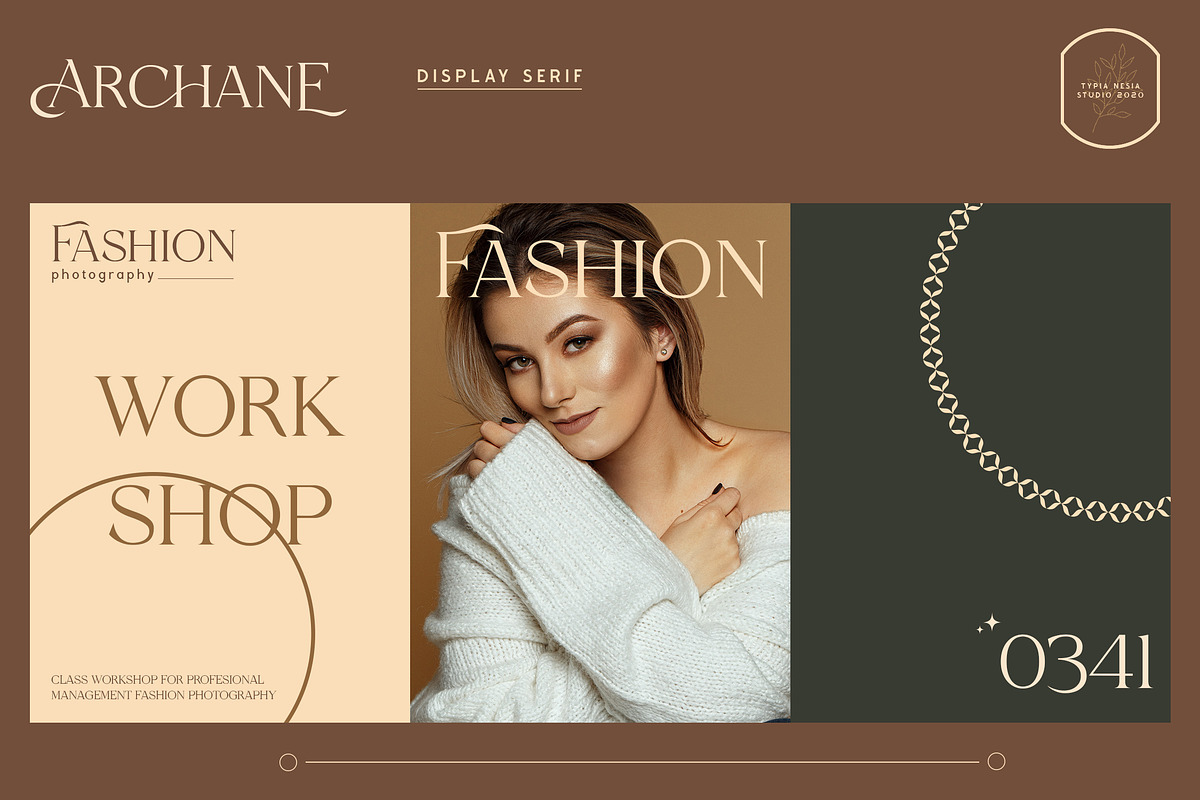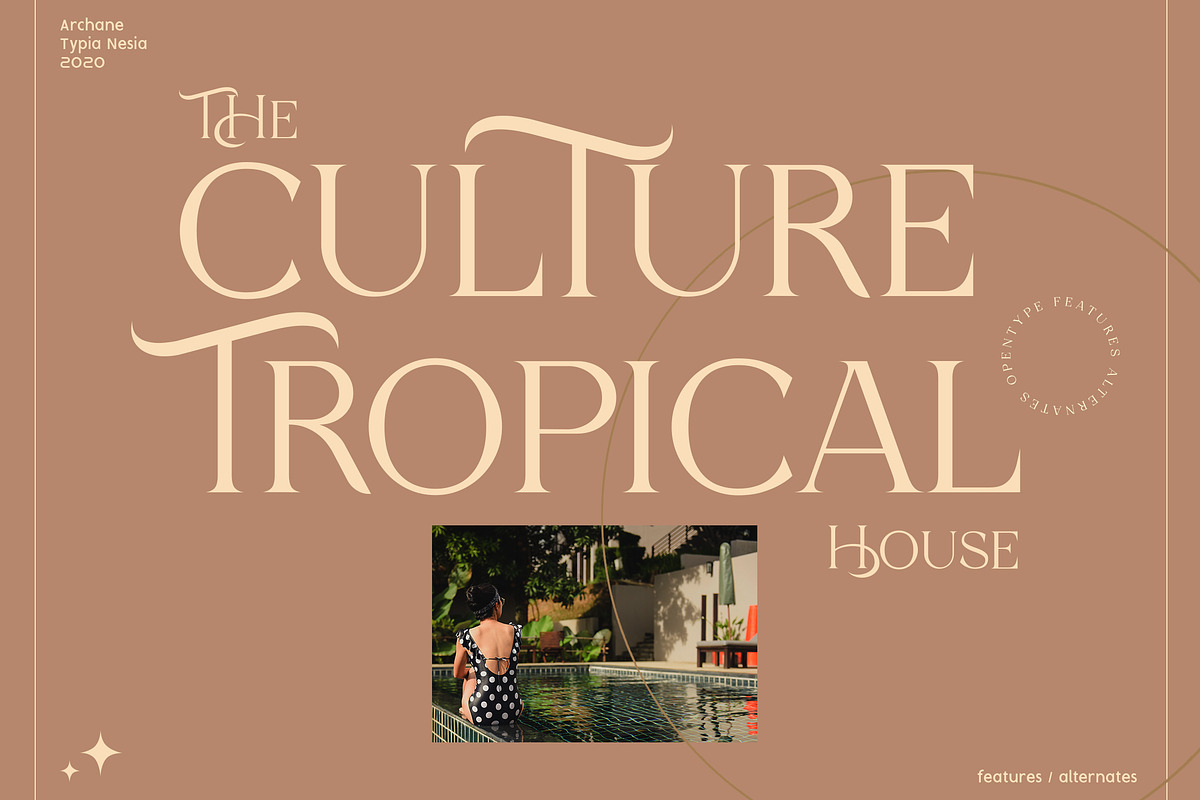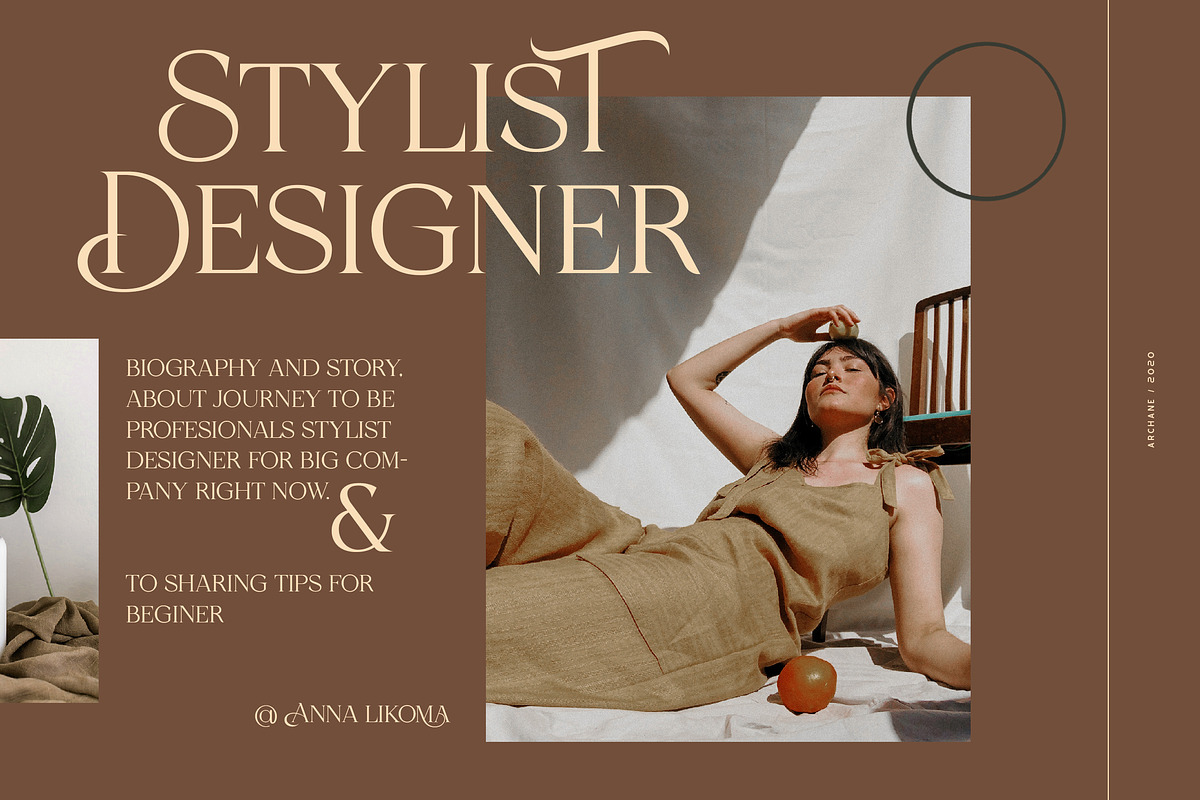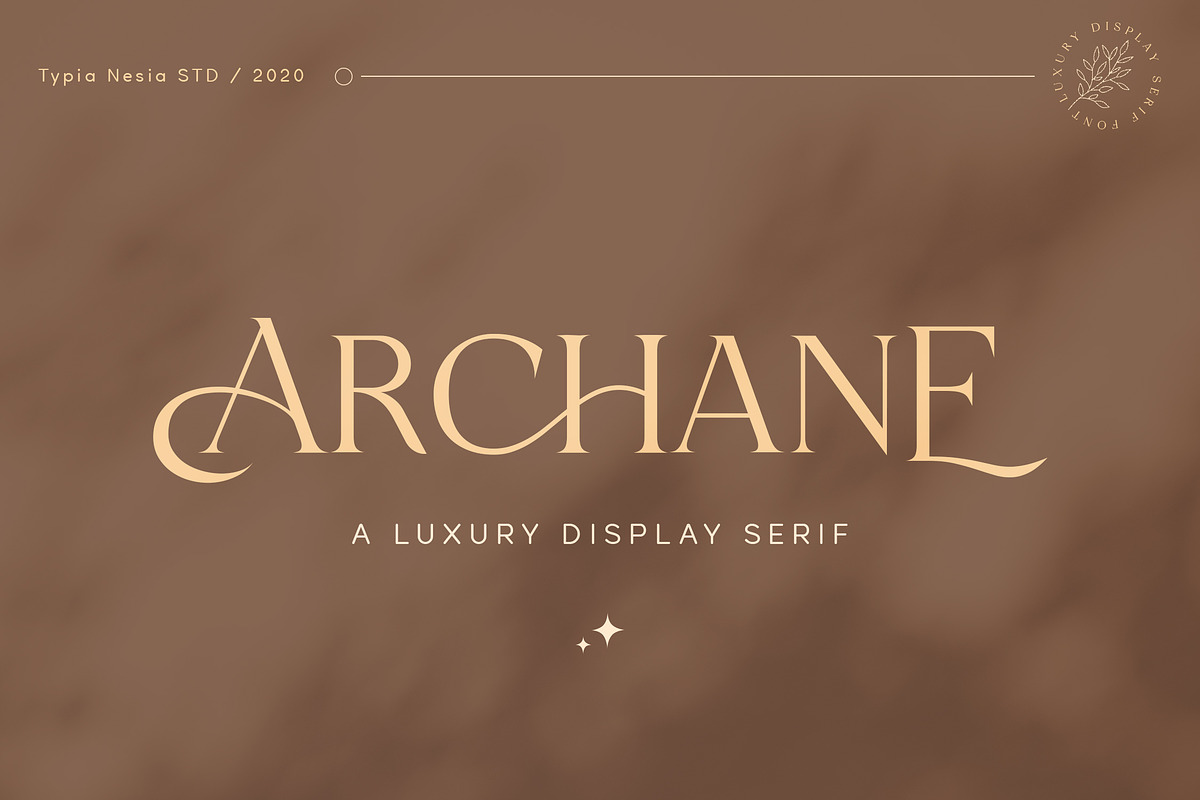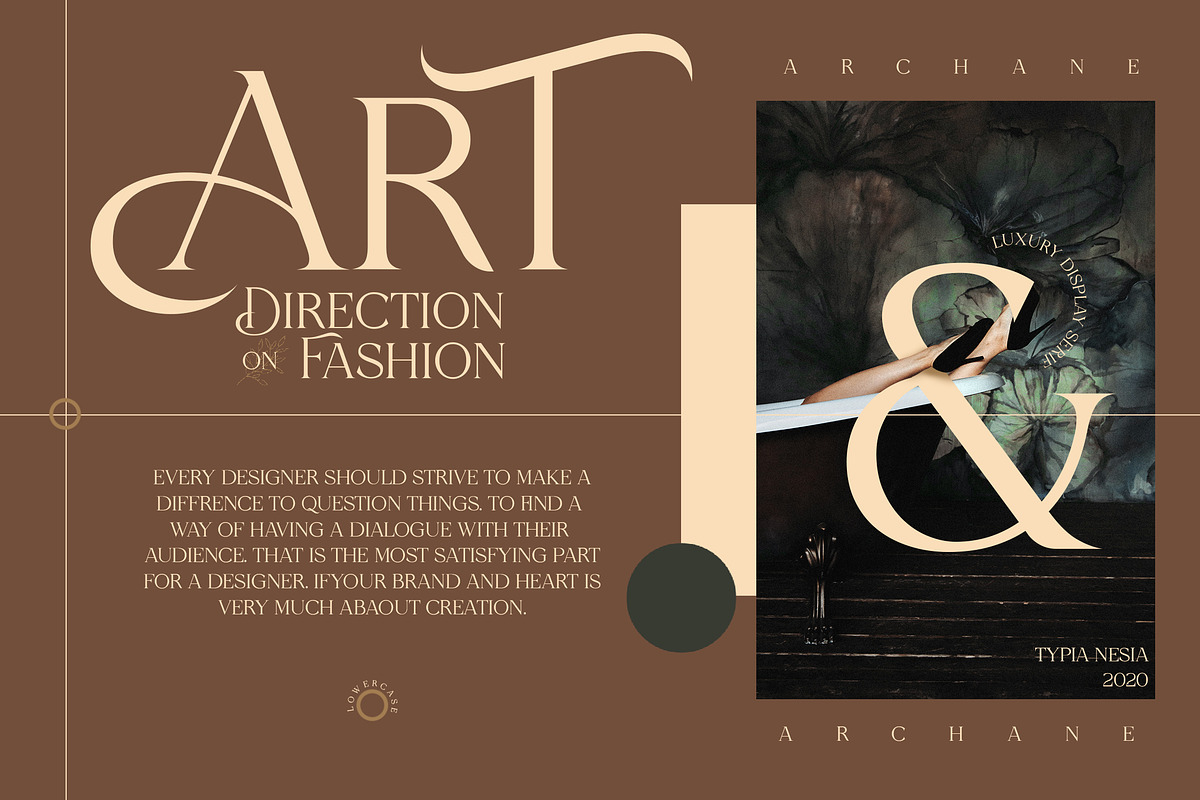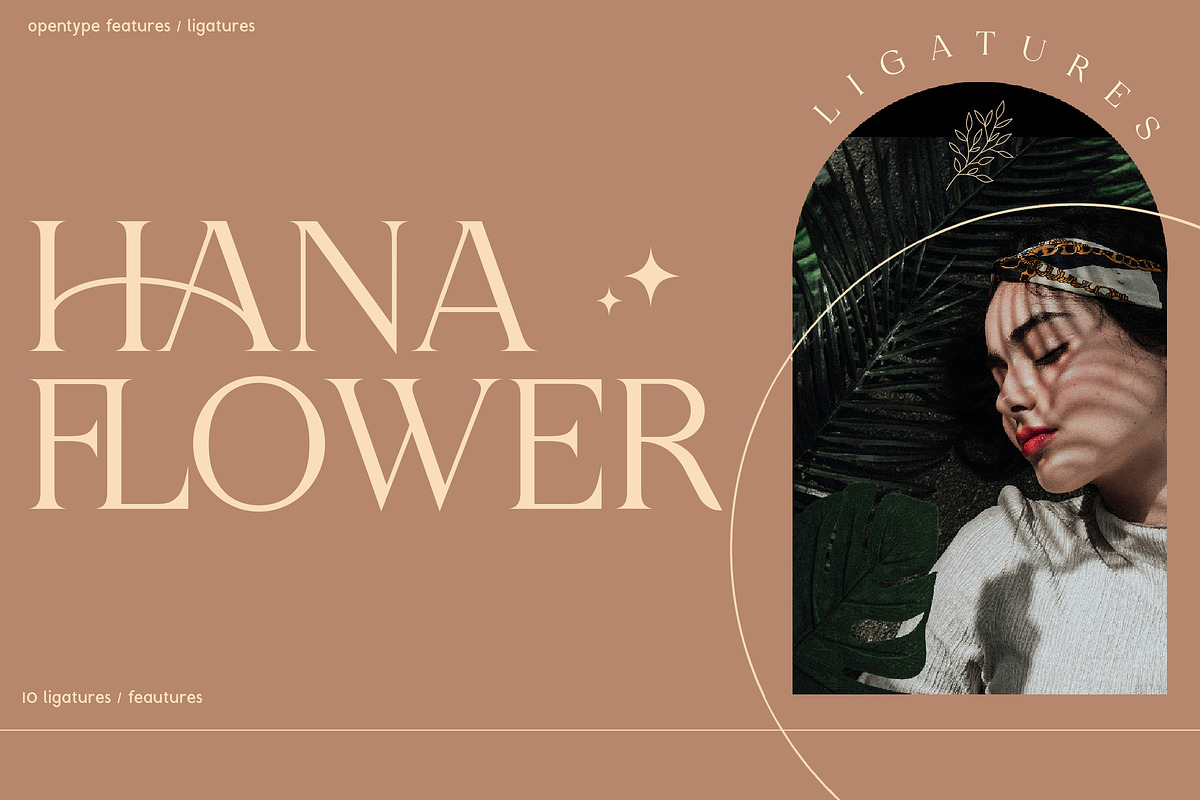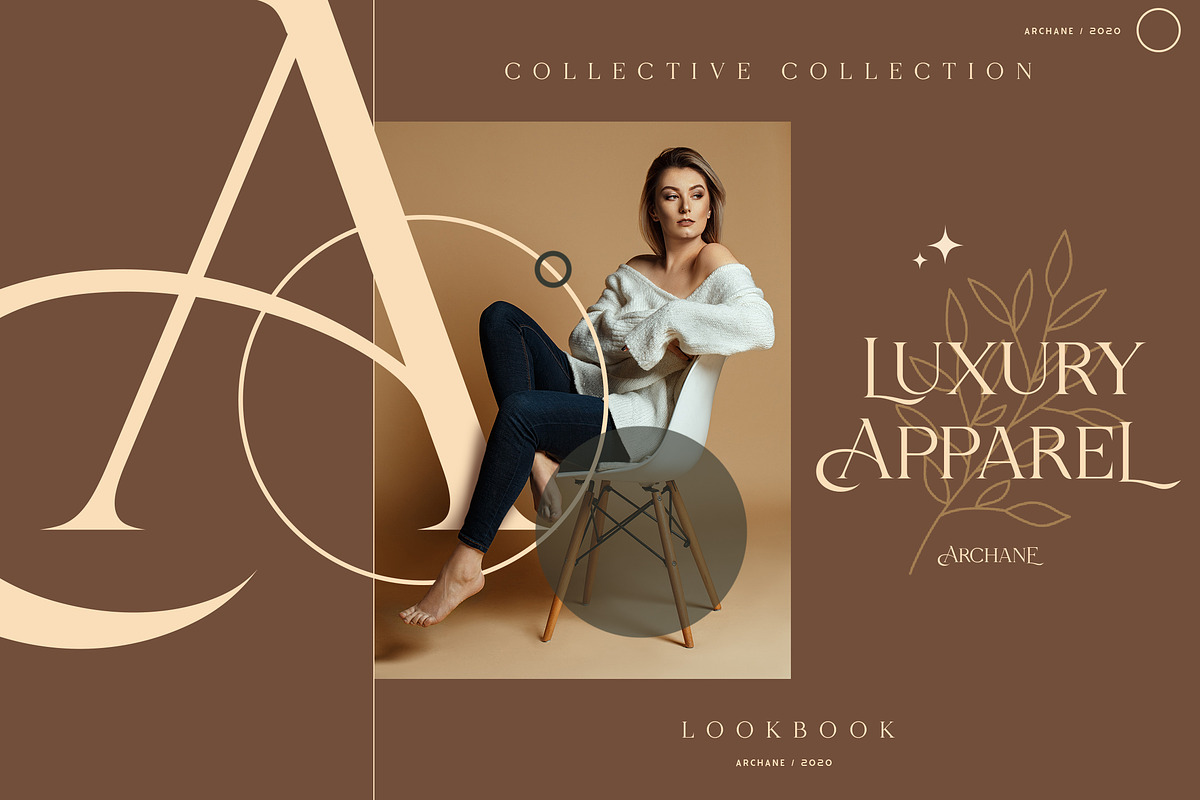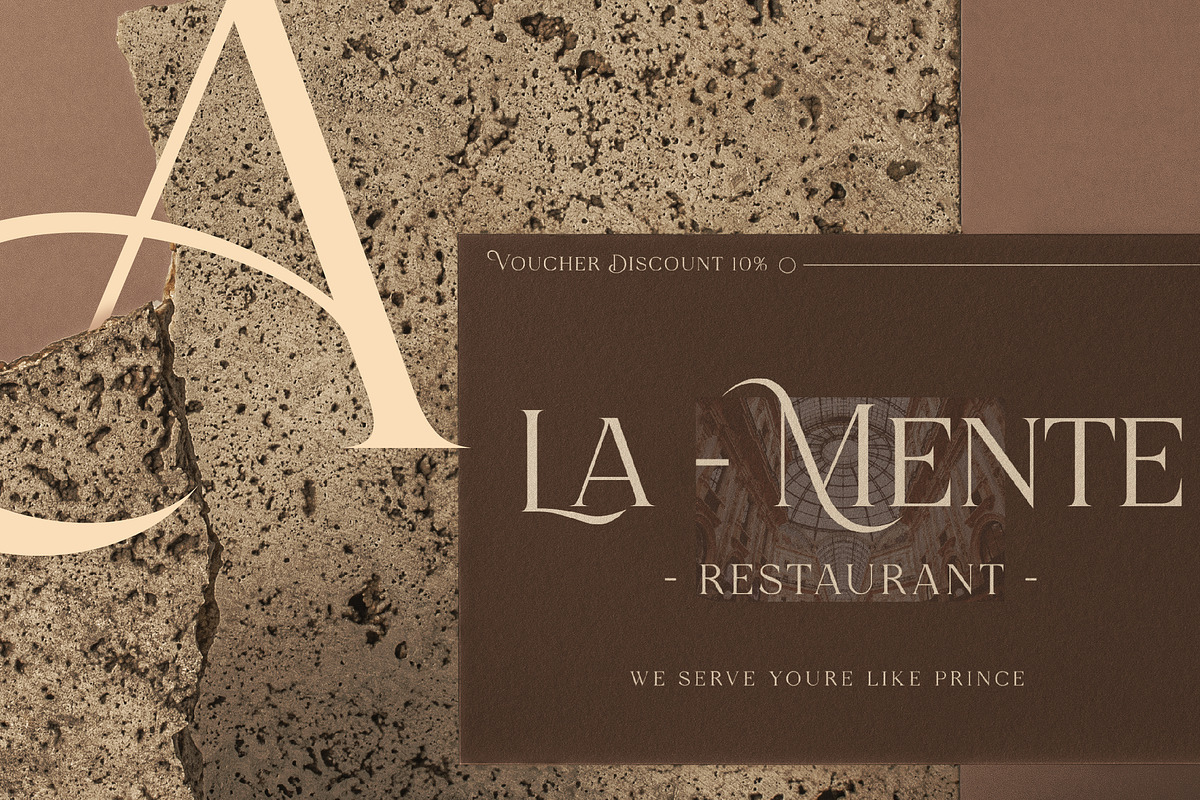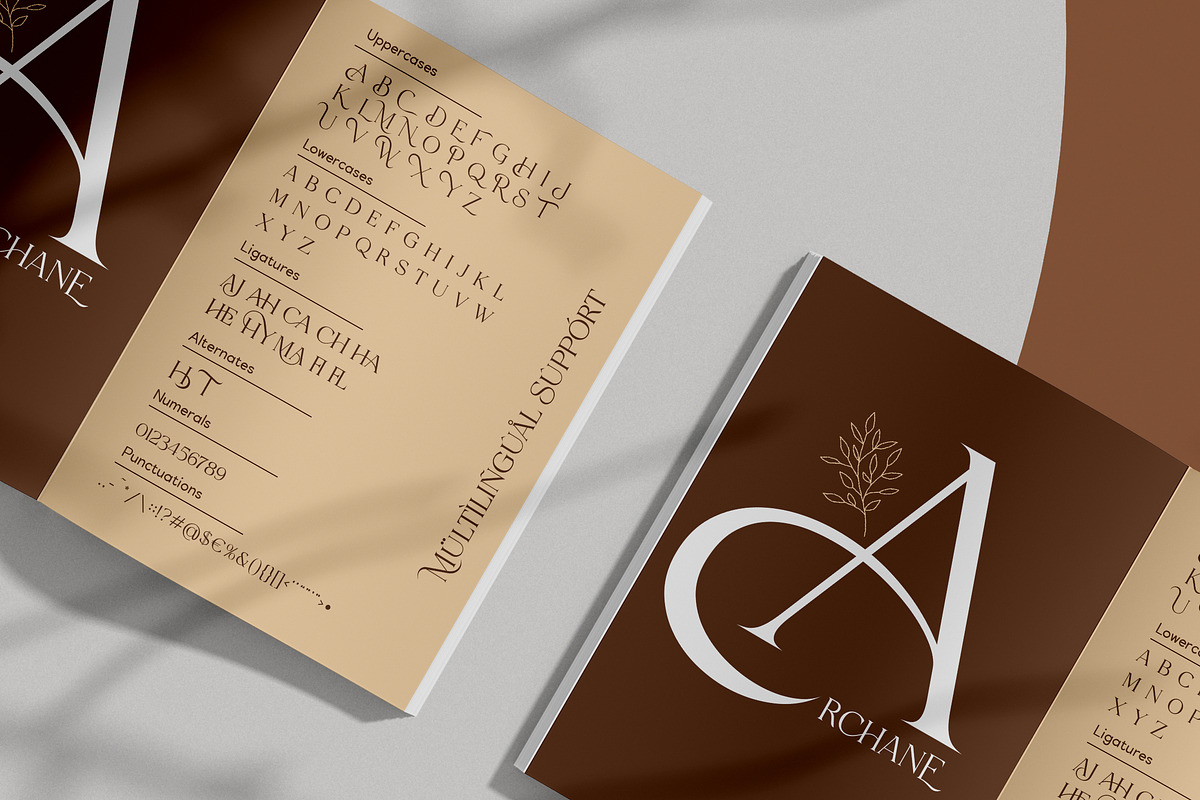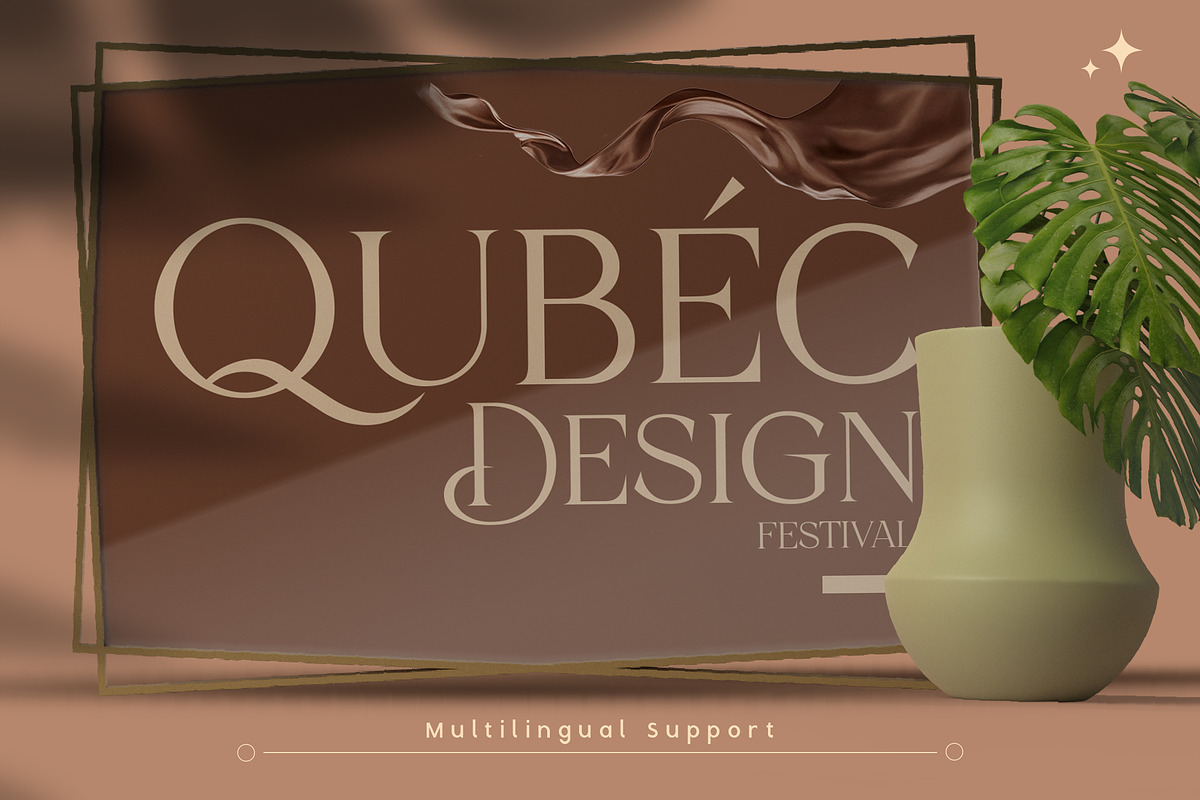
Archane - Display Serif
Archane - Feminine / Girly Display Serif - Elegant Luxury serif font.
Archane Display Serif font is perfect for your up coming projects. Such as luxury logo and branding, classy editorial design, magazine, fashion promotional, boutique branding, stationery design, blog design, modern advertising design, card invitation, art quote, home decor, book/cover title, special events and any more.